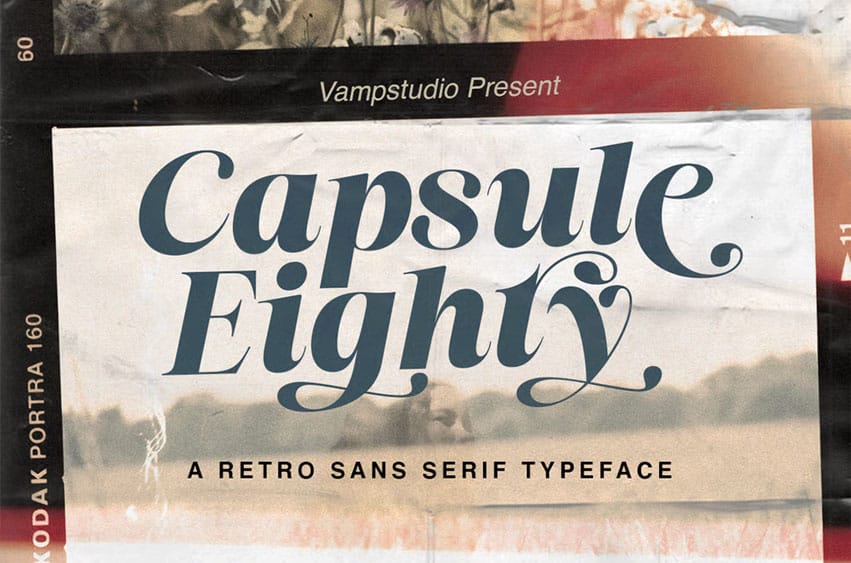
Capsule Eighty Font is a retro serif display font that blends nostalgic character with modern balance. Its soft curves, thick contrast, and playful terminals bring a warm and stylish personality to your typography. Inspired by 70s aesthetics and classic editorial design, this font works beautifully for branding, packaging, posters, and magazine layouts.
Whether you’re designing a lifestyle brand, a coffee label, or a travel-inspired headline, Capsule Eighty adds sophistication with a touch of nostalgia.
- Uppercase & lowercase letters
- Alternates and ligatures for unique combinations
- Numerals, punctuation & multilingual support
- Smooth, high-contrast shapes for easy readability
Bring your designs back in time — with the modern charm of Capsule Eighty.